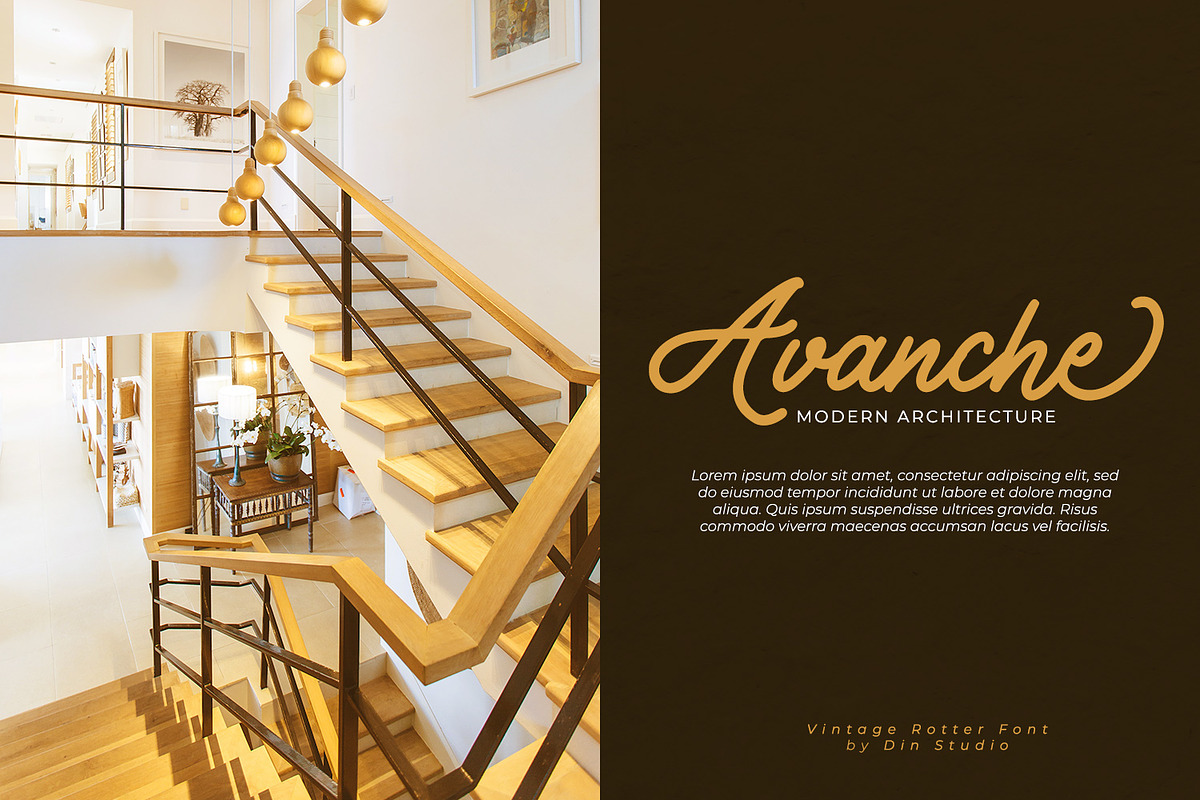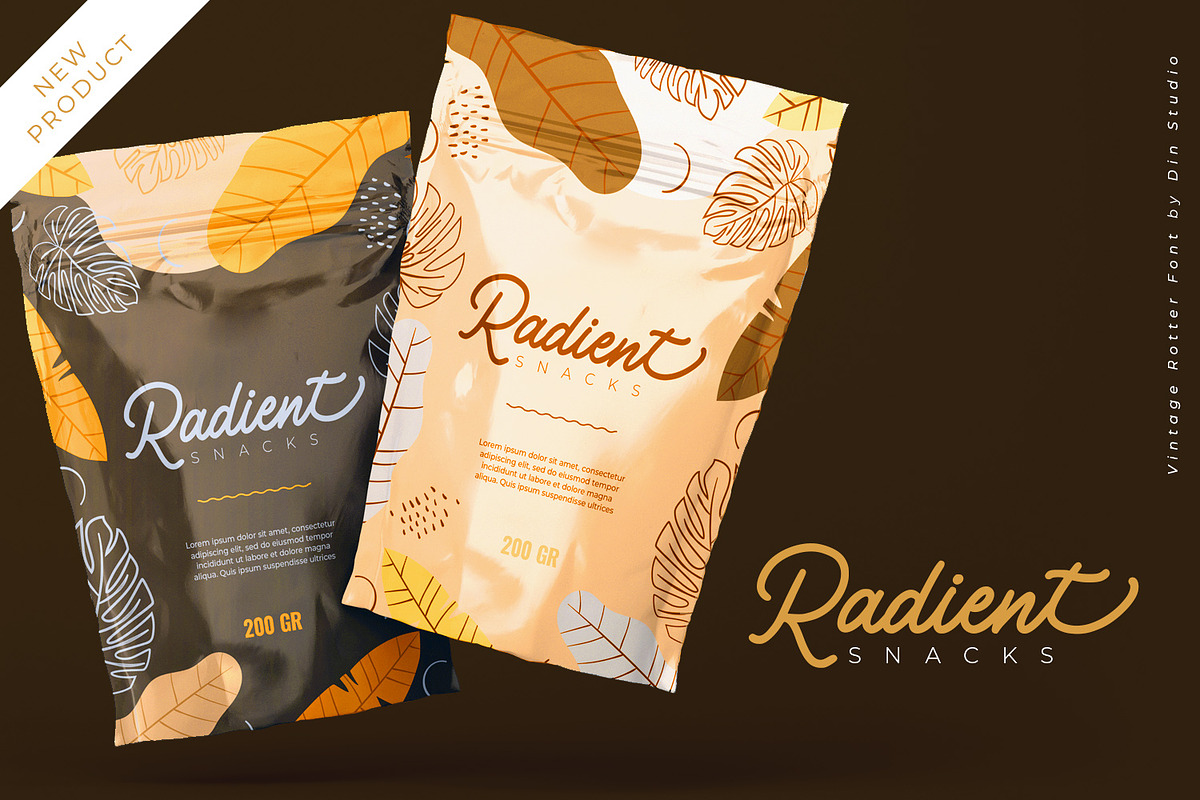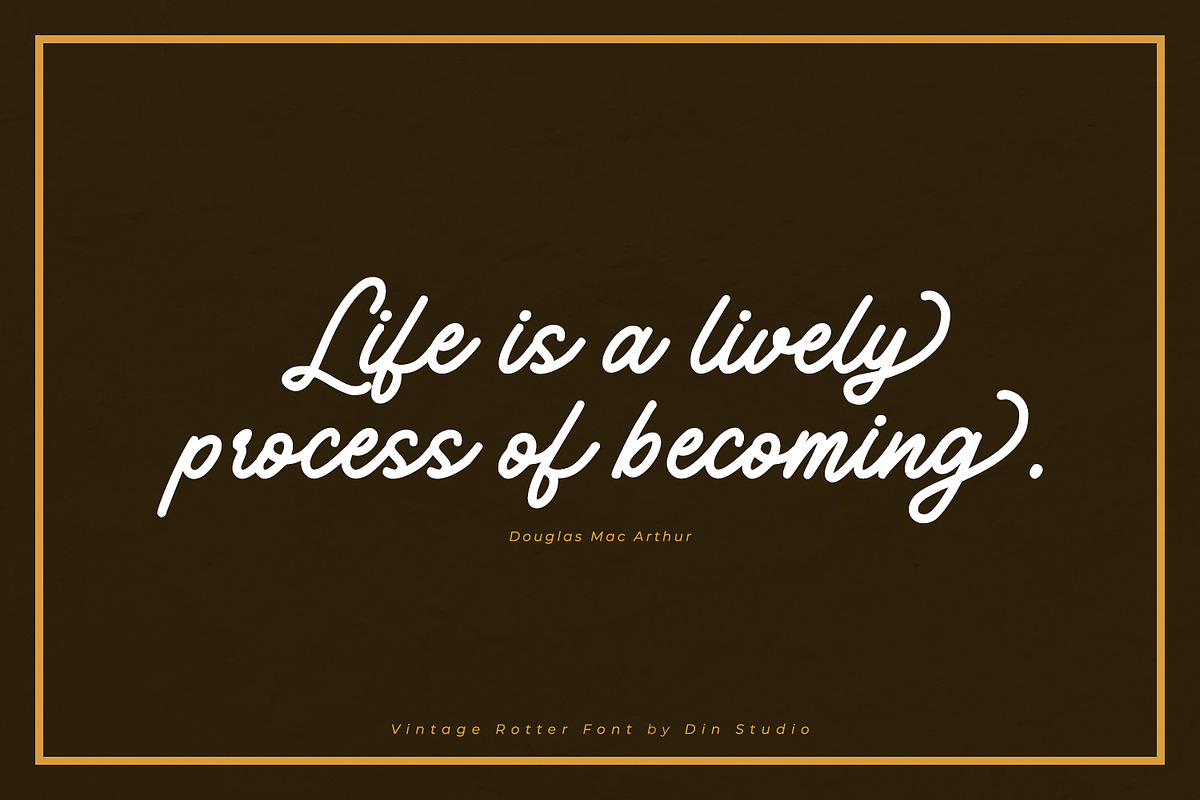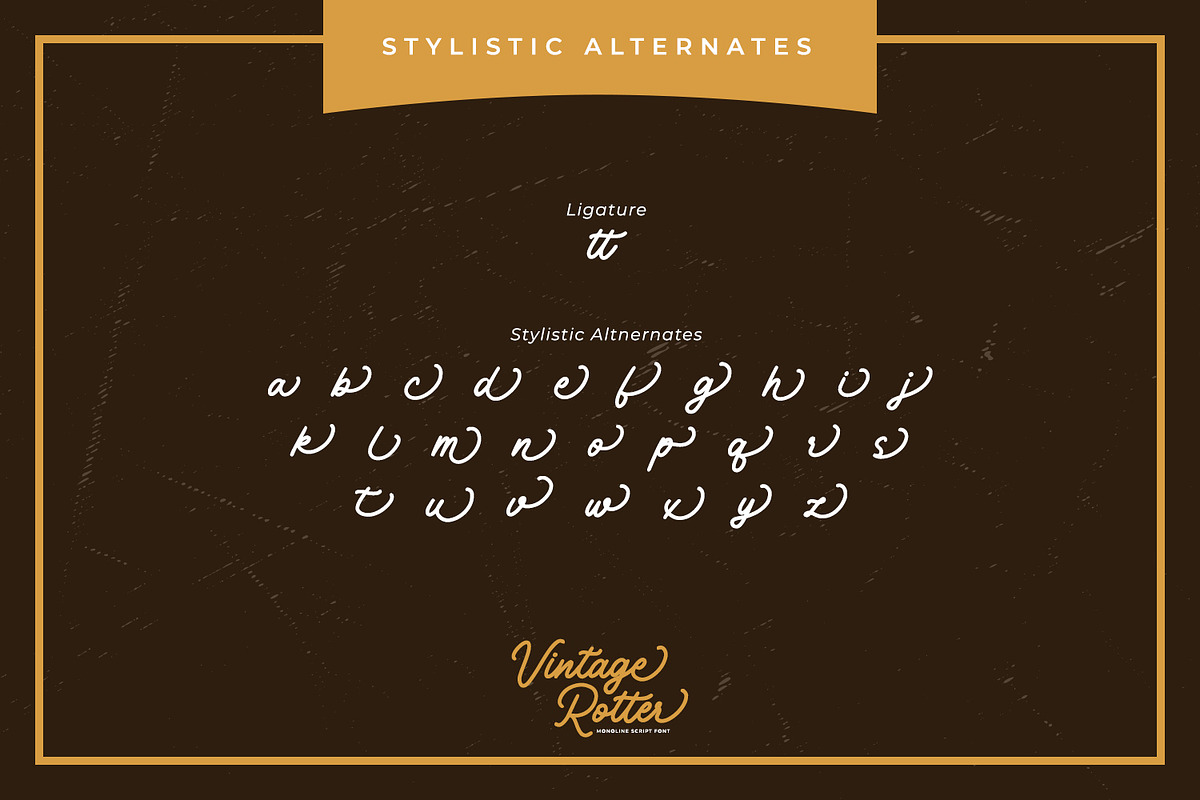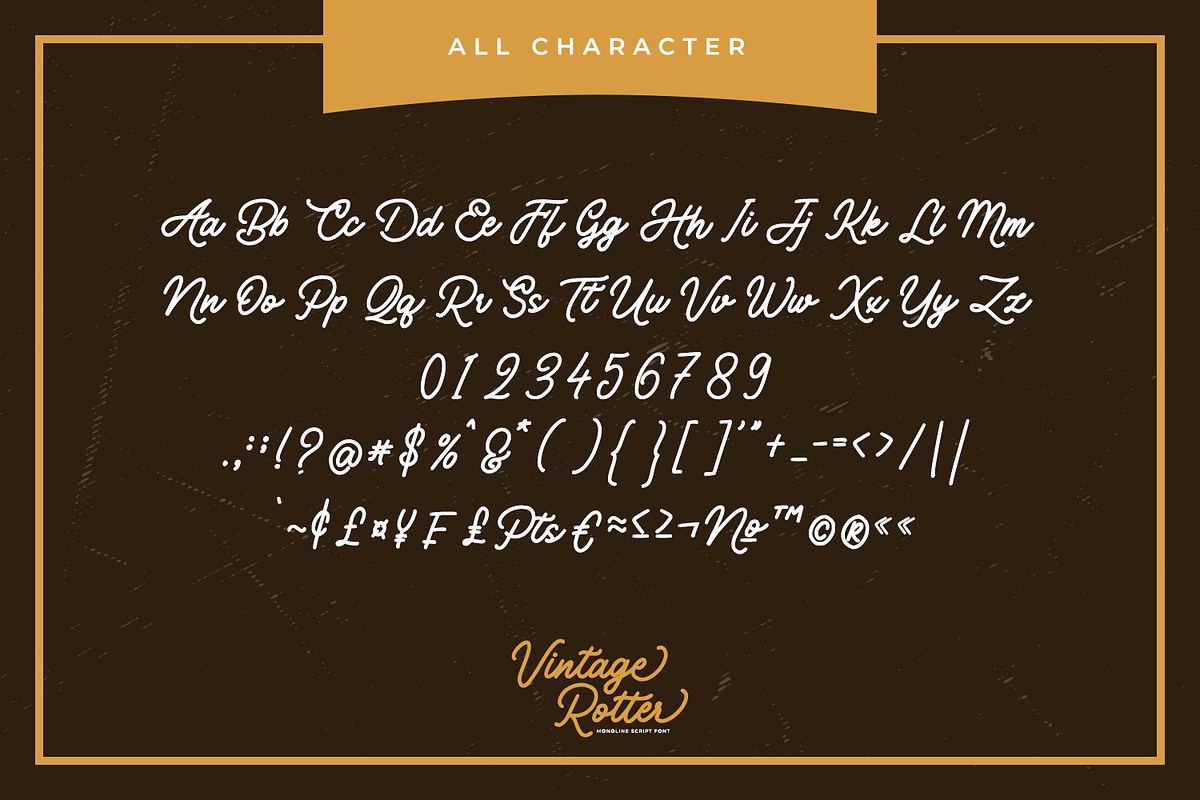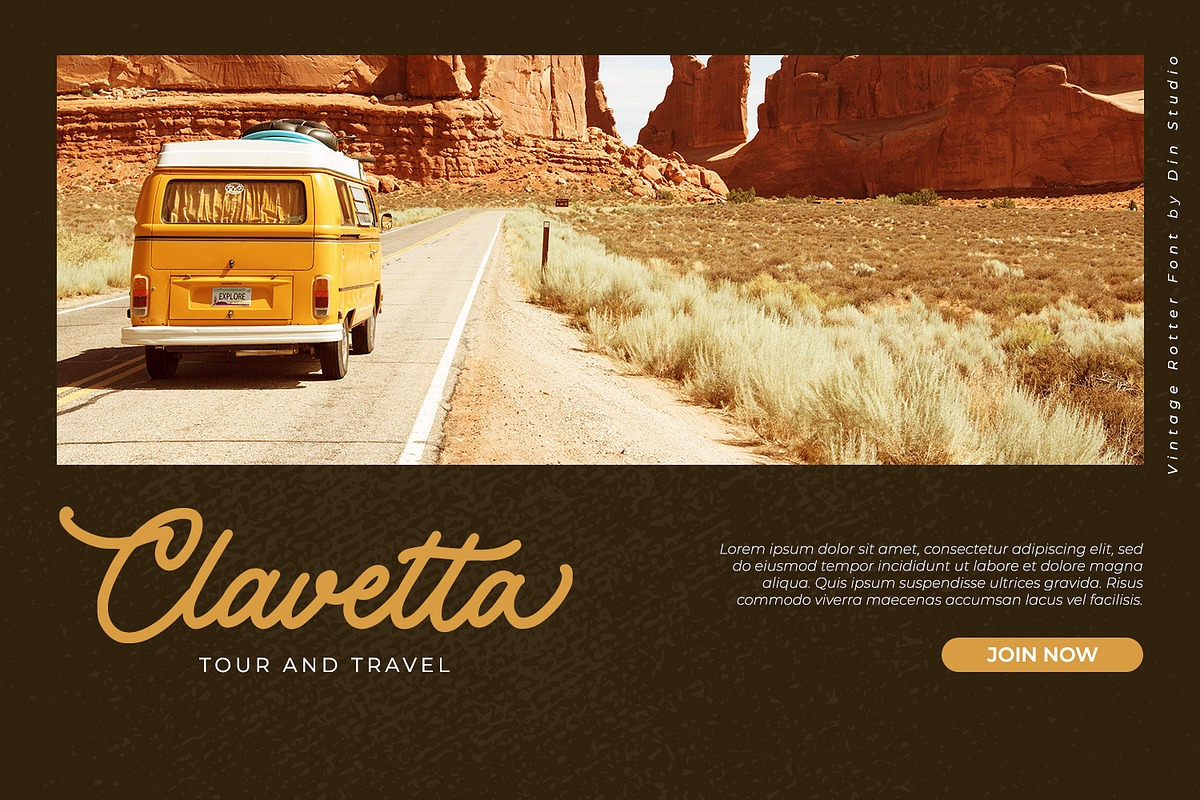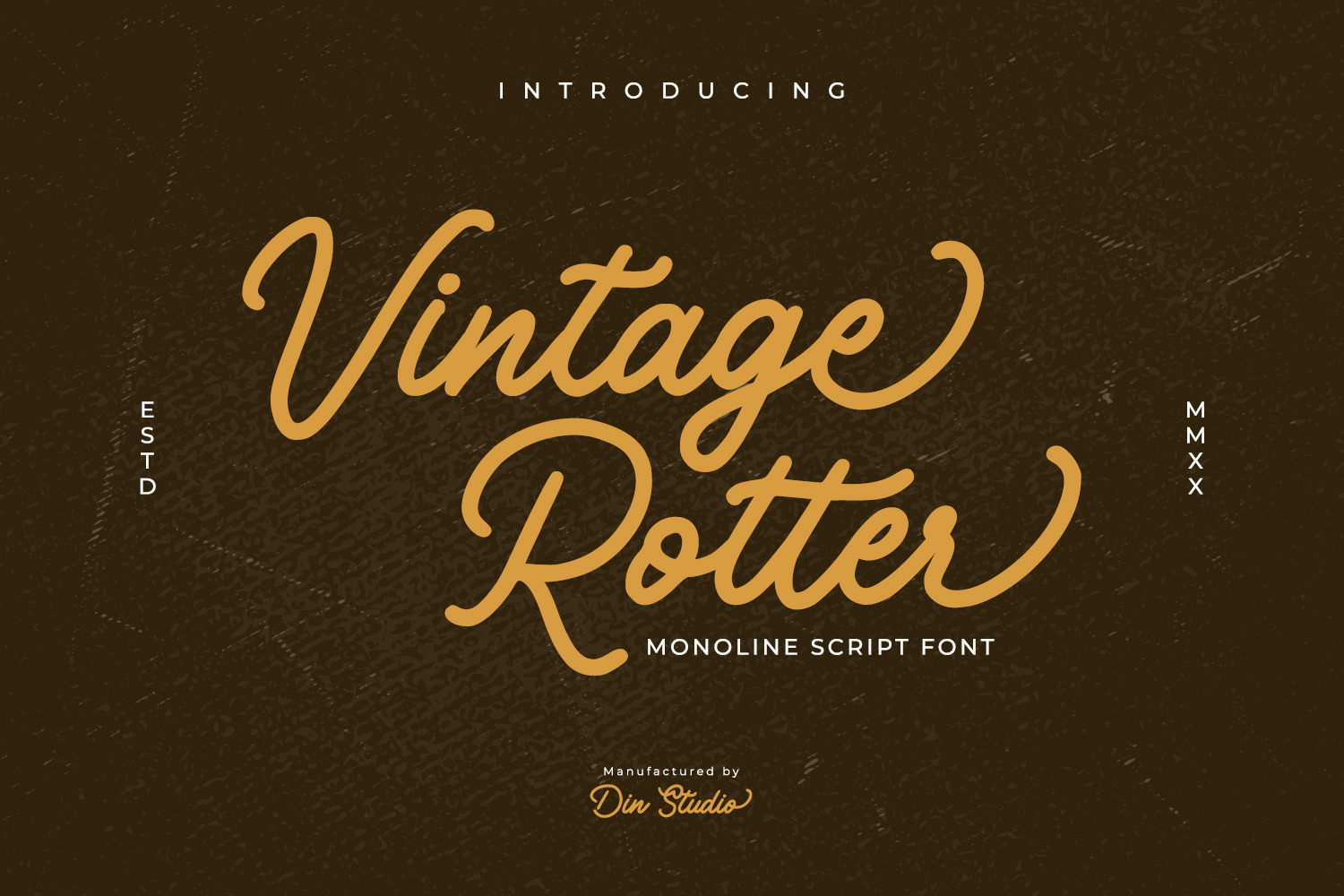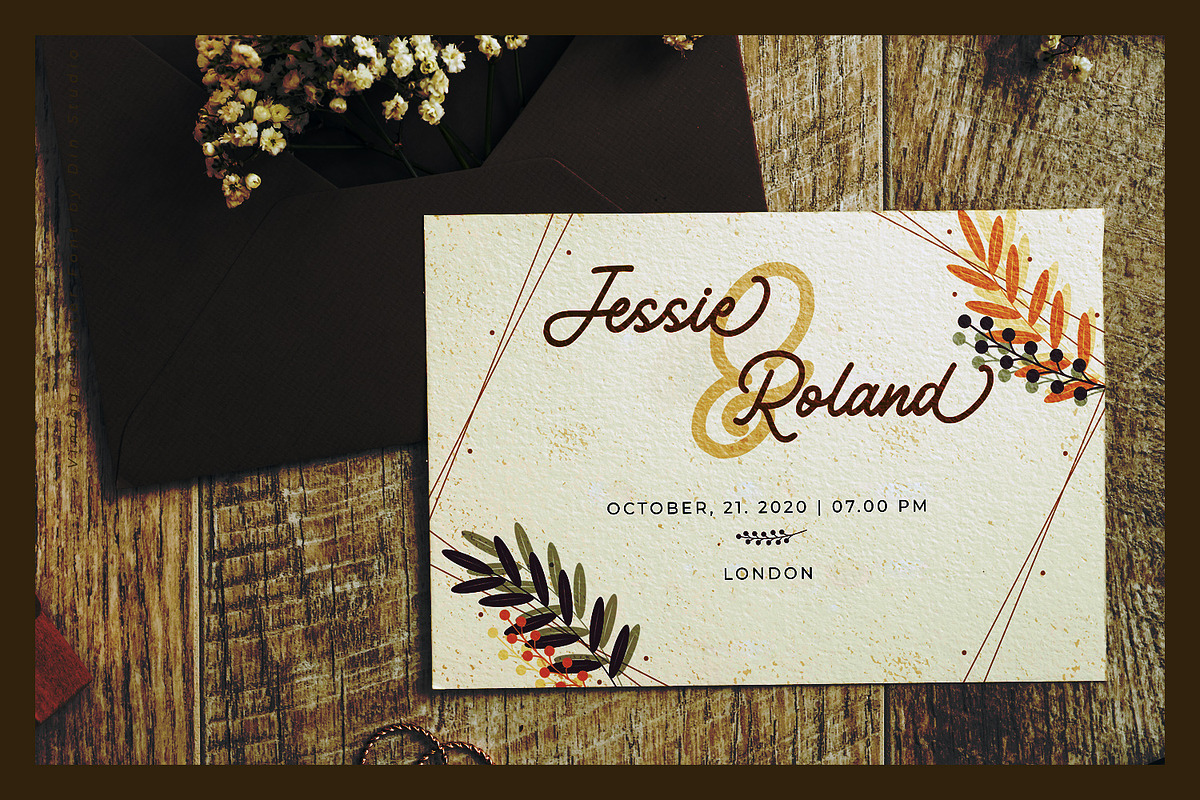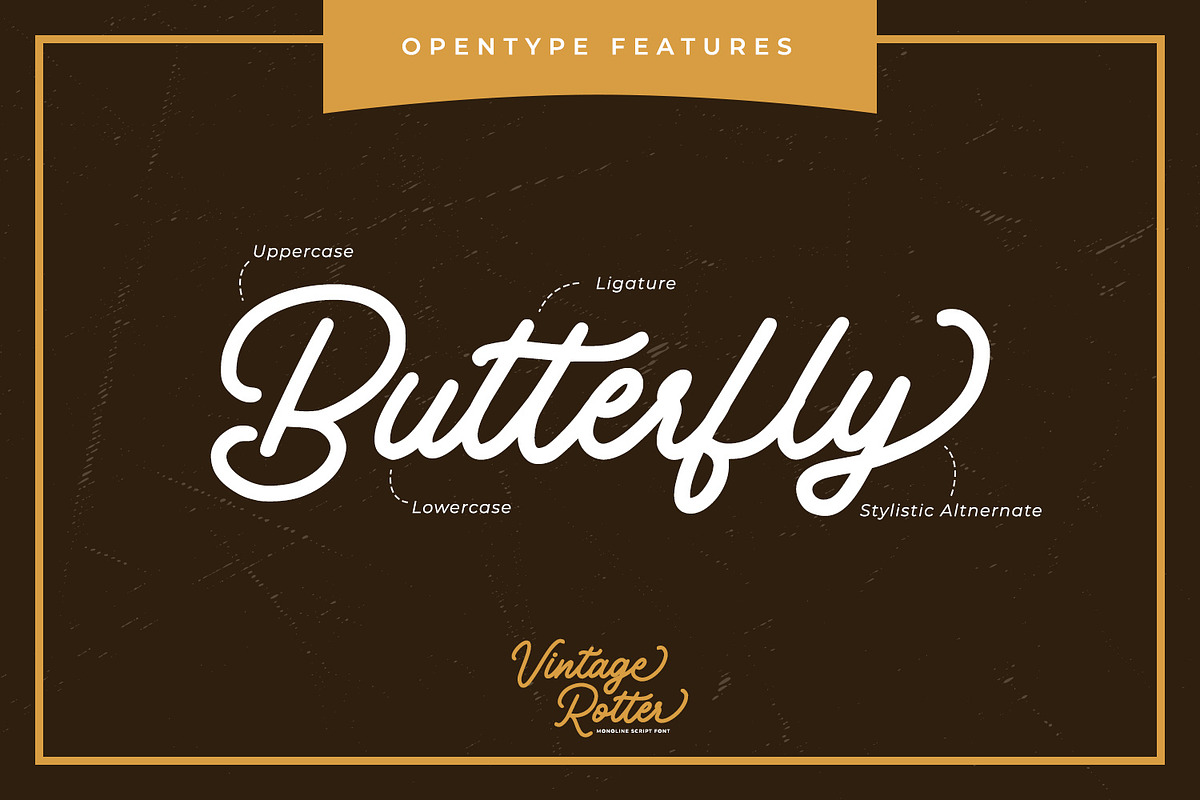
Hello, Awesome People! This is the Vintage Rotter – Monoline Script Font made for any design projects, such as posters, banners, logos, book covers, album covers, quotes, invitations, greeting cards, name cards, headings, printed products, merchandise, social media, etc. Every letter has a unique and beautiful touch. Find out more ways to use this font by taking a look at the font preview.